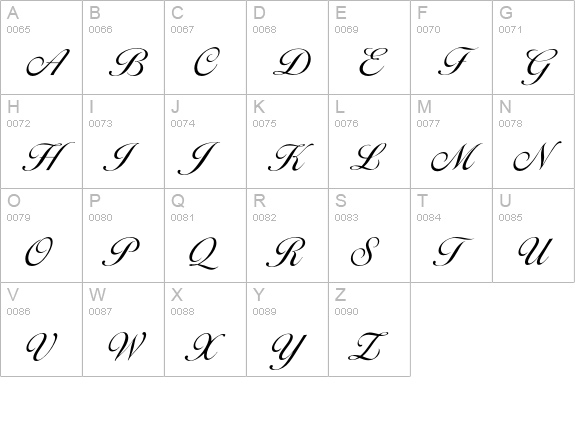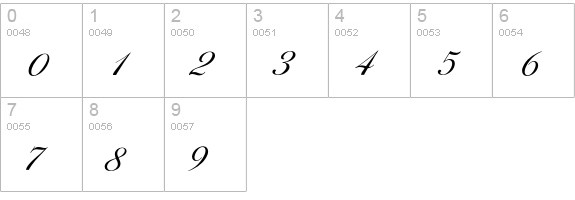
BallantinesScriptEF-Light is a refined, elegant variant in the BallantinesScriptEF typeface family \xE2\x80\x94 well suited to elegant body text, refined sub-headings, and luxury branding.
BallantinesScriptEF-Light is a beautiful and elegant font that brings a sense of sophistication to any design project. With its delicate and flowing script style, this font is perfect for adding a touch of class to invitations, wedding materials, logos, and more. The light weight of the font gives it a graceful and airy appearance, making it versatile for a wide range of applications. The best part is that BallantinesScriptEF-Light is completely free to download at FontsMarket.com. This means you can easily access this stunning font to elevate your designs without any cost. Whether you're a designer looking to add a touch of luxury to your projects or someone planning a special event and in need of elegant typography, BallantinesScriptEF-Light is a fantastic choice that won't break the bank. Download it today and see how it can enhance your creative endeavors!